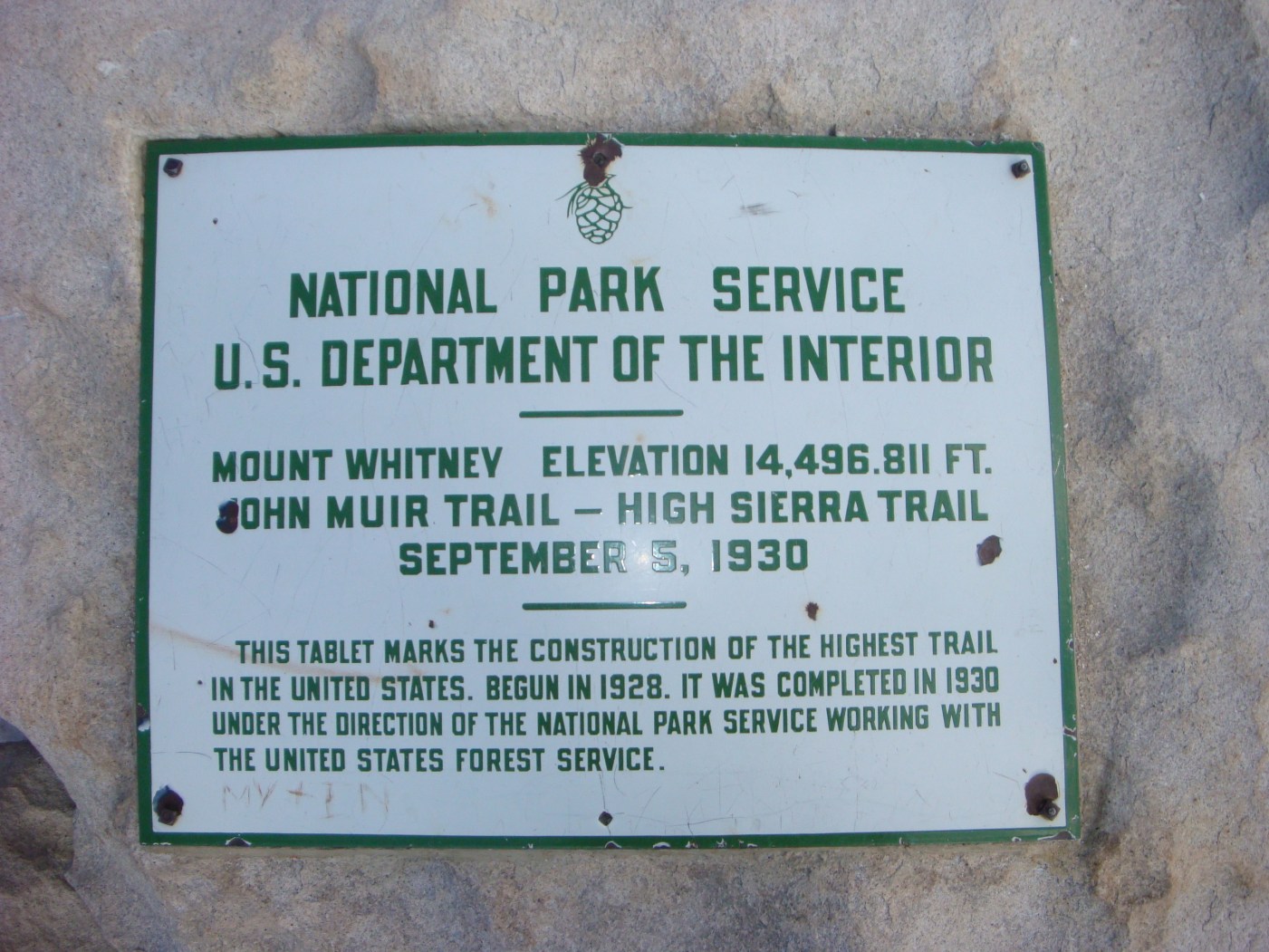
Mt. Whitney Summit Sign
Would similar ones suffice? At that time, fonts were metal type made for printing on a surface like paper. That sign wasn’t printed though and didn’t use what we consider a font today.